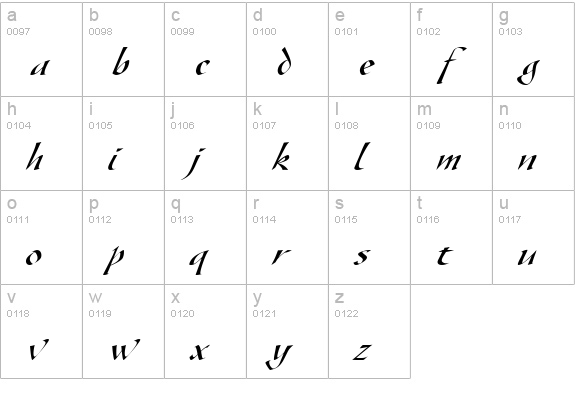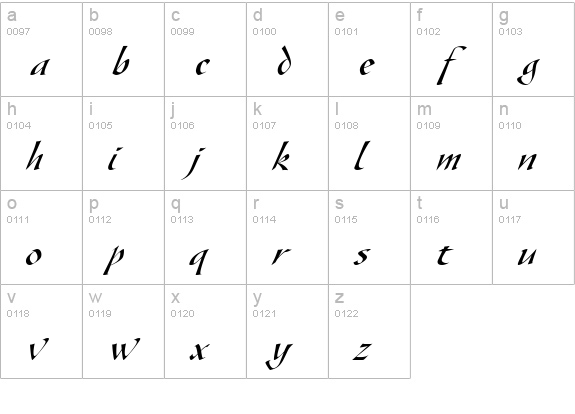
Gaze Italic is a distinctive, italic variant in the Gaze typeface family \xE2\x80\x94 well suited to design and typography projects.
Gaze Italic is a stunning and elegant font that exudes sophistication and style. Its sleek and fluid design creates a sense of movement and grace, making it perfect for adding a touch of refinement to any project. The italicized characters add a dynamic and modern twist to traditional typography, making Gaze Italic a versatile choice for a wide range of design applications. What sets Gaze Italic apart is that it is not only beautiful and functional, but also free to use. That's right, this exquisite font is freely available for download at FontsMarket.com. Whether you're working on a personal project or a professional design, Gaze Italic is sure to elevate your work with its timeless charm and effortless elegance. Download it today and unlock the potential of this exceptional typeface.